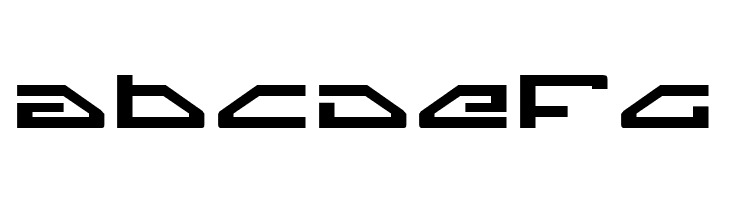
Archery Black Italic Font
A bold, expanded, and italic font with a futuristic and dynamic style.
A futuristic, geometric font with sharp angles and a digital aesthetic.
A futuristic, angular italic font with bold strokes and a dynamic slant.
A futuristic, angular font with bold geometric shapes.
A futuristic, angular, and italicized font with a sleek, modern design.
A futuristic, angular font with an italic slant and expanded width, perfect for modern designs.
A bold, italicized font with a futuristic, angular design.